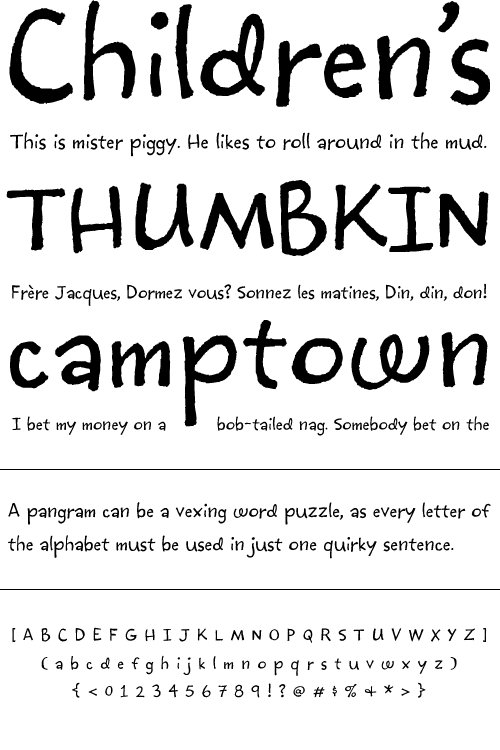
Joppa
Joppa is a happy hand drawn sans face. Because it has intentionally rough edges to suggest ink splatter, it is generally not recommended for use at huge sizes.